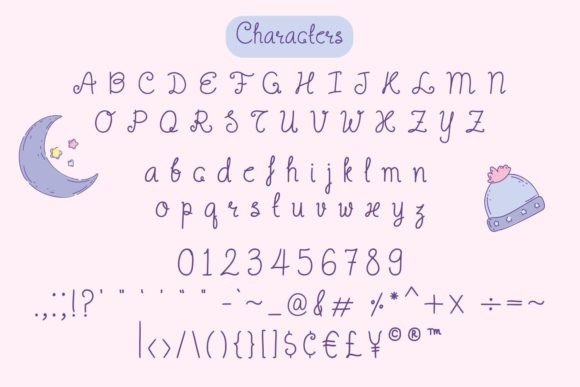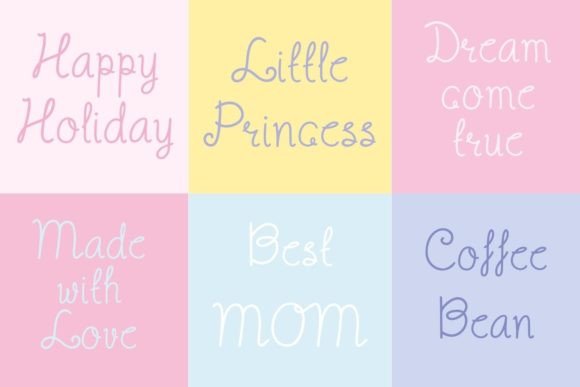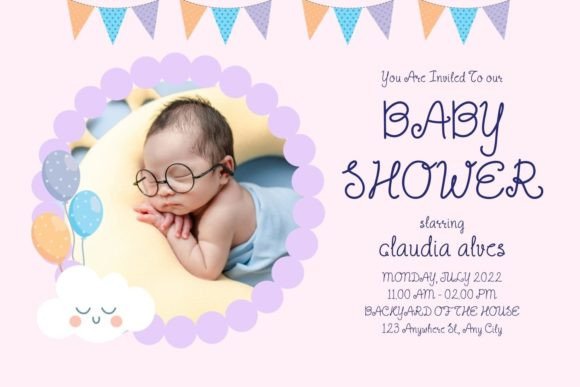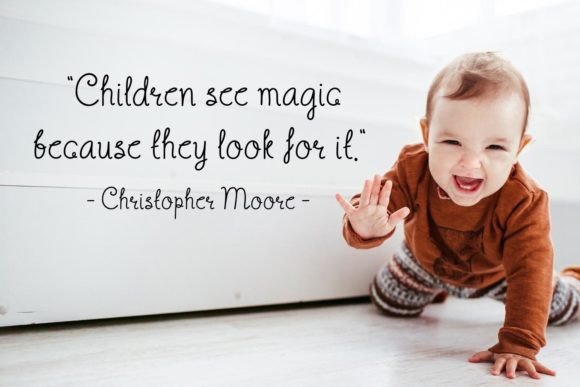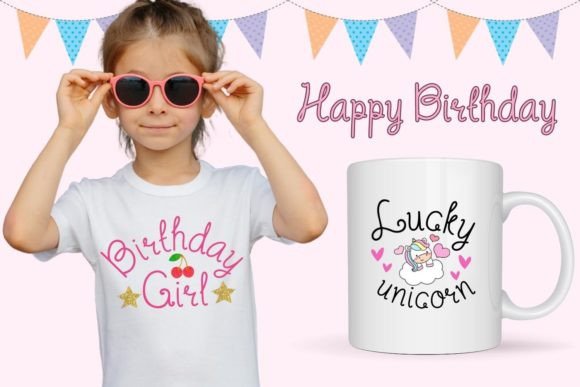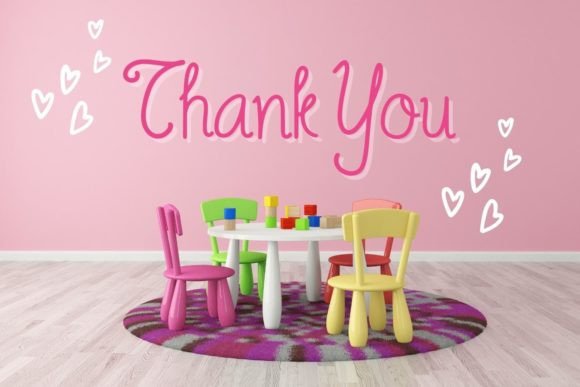
Introduction to Magic Lullaby Font
Introducing our delightful font for kids, “Magic Lullaby”.
This adorable and gentle typeface is perfect for capturing the essence of childhood innocence and playfulness Inspired by the cute and endearing nature of children.
Key Features of Magic Lullaby Font
Why Choose Magic Lullaby Font?